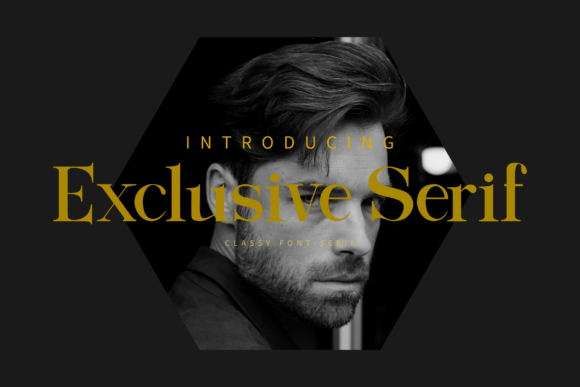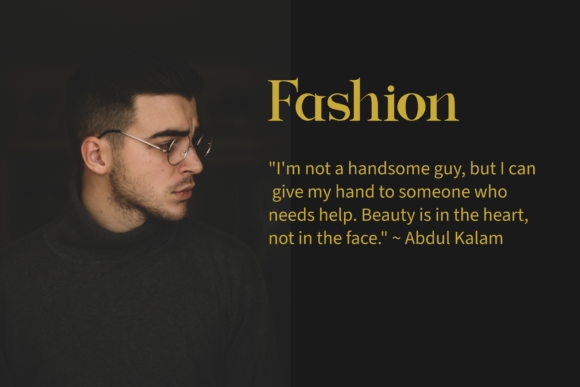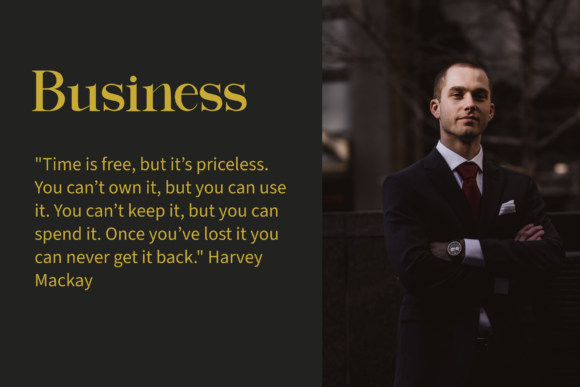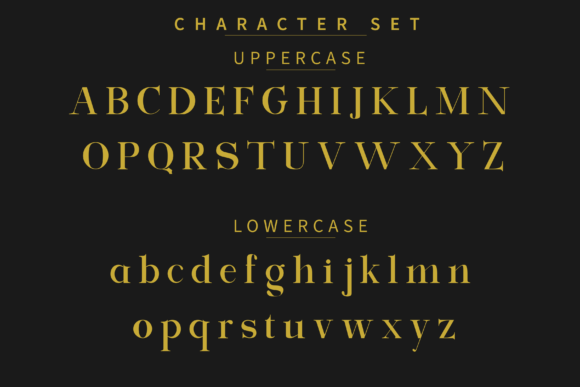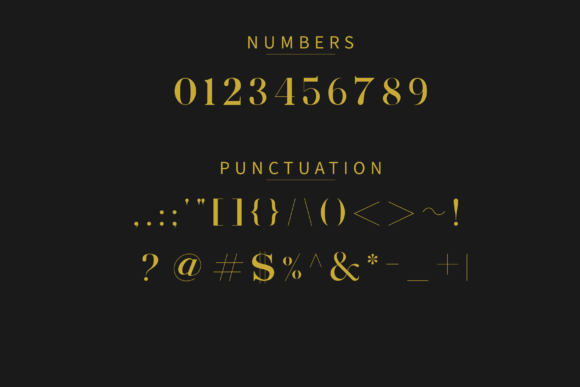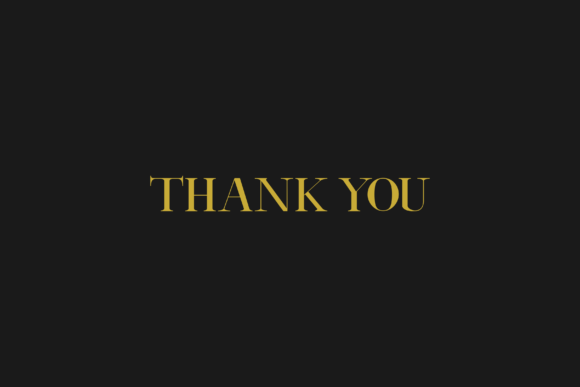
The Art of Elegant Typography
As a designer, there’s nothing quite like the thrill of bringing a creative vision to life. You’ve poured your heart and soul into a project, and the final product is nothing short of breathtaking. But what sets it apart from the rest? For many of us, it’s the typography – the way the words dance across the page, drawing the viewer’s eye and conveying the tone of the message.
That’s where the Exclusive Serif Font comes in – a beautiful, elegant serif font that adds a touch of sophistication to any design. Whether you’re crafting wedding invitations, thank you cards, or logos, this font is sure to elevate your work and leave a lasting impression. And as a designer, you know that having the right tools at your fingertips can make all the difference in creating truly unforgettable designs.
Exclusive Serif Font Key Features
- Font Family: Exclusive Serif Font family consists of 12 styles, including Light, Regular, Medium, Bold, Black, and their respective italic versions.
- Font Size: Exclusive Serif Font is designed to be highly legible at font sizes ranging from 8pt to 24pt, making it suitable for body text, headings, and titles.
- Resolution: Optimized for high-resolution displays, Exclusive Serif Font supports resolutions up to 300 DPI, ensuring crisp and clear typography at various screen sizes.
- Unique Characteristics: The font features a classic serif design with subtle flair and elegance, making it perfect for luxury, fashion, and high-end branding.
- Language Support: Exclusive Serif Font supports a wide range of languages, including Latin, Cyrillic, Greek, and many others, making it an excellent choice for global branding and publishing.
Designer Review: Exclusive Serif Font
Overall, I’m a bit torn about this font. Let’s break it down.
- Unique Character: The Exclusive Serif Font has a distinct personality that sets it apart from other serif fonts.
- High-Quality Rendition: It’s well-designed and displays beautifully at various sizes and resolutions.
- Readability: The font is easy to read, even in smaller sizes.
- Limited Stylistic Options: While the font has a unique character, it’s somewhat rigid in terms of style. This might limit its versatility in certain design contexts.
- Not Suitable for Digital Displays: Unfortunately, the font doesn’t display as well on digital screens as it does on print materials.
- No Cyrillic or Greek Support: This is a significant limitation for designers who frequently work with non-Latin languages.
The Exclusive Serif Font is a solid choice for print materials and projects where its unique character will shine. However, its limitations make it less suitable for digital projects or designs that require a high level of customization. It’s worth considering for specific projects, but I wouldn’t recommend it as a go-to font for everyday use.
The Exclusive Serif Font is ideal for:
- Business reports and proposals
- Academic papers and theses
- Editorial and publishing designs
To get the most out of the Exclusive Serif Font, consider:
- Pairing it with a bold sans-serif font for contrast
- Using it in combination with subtle gradients and textures
- Experimenting with different font sizes and weights
Alternatives to Exclusive Serif Font
Playfair Display is an elegant and luxurious serif font ideal for high-end fashion, luxury brands, and sophisticated designs. It’s perfect for headings and titles that require a touch of sophistication and elegance.
Compared to Exclusive Serif Font, Playfair Display has a more refined and ornate design, making it suitable for high-end branding and editorial content.
Merriweather is a classic and traditional serif font that’s perfect for body text, academic papers, and historical publications. It’s also suitable for book covers and literary-themed designs.
Compared to Exclusive Serif Font, Merriweather has a more conservative and timeless design, making it ideal for content that requires a sense of stability and tradition.